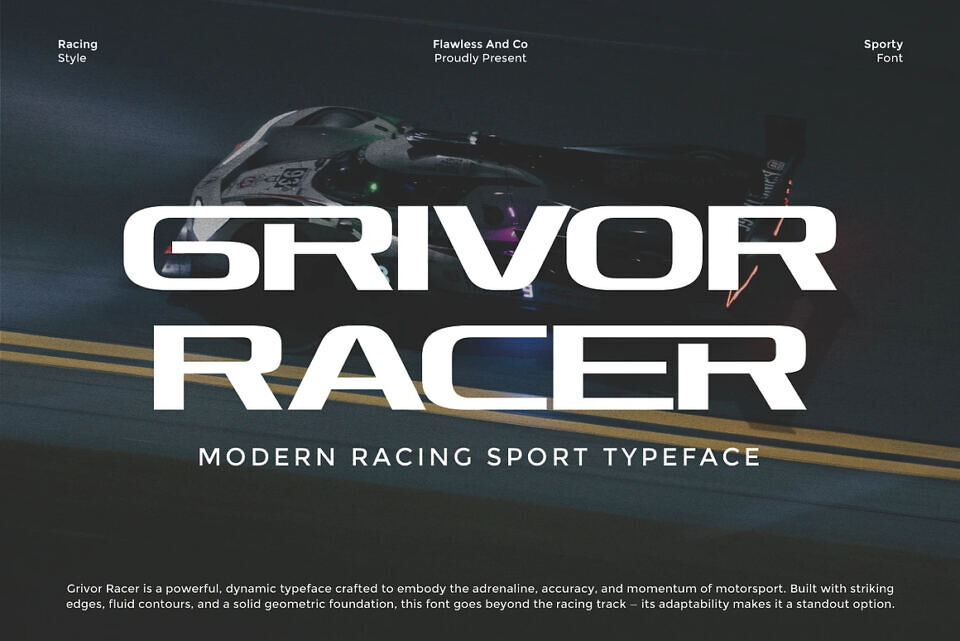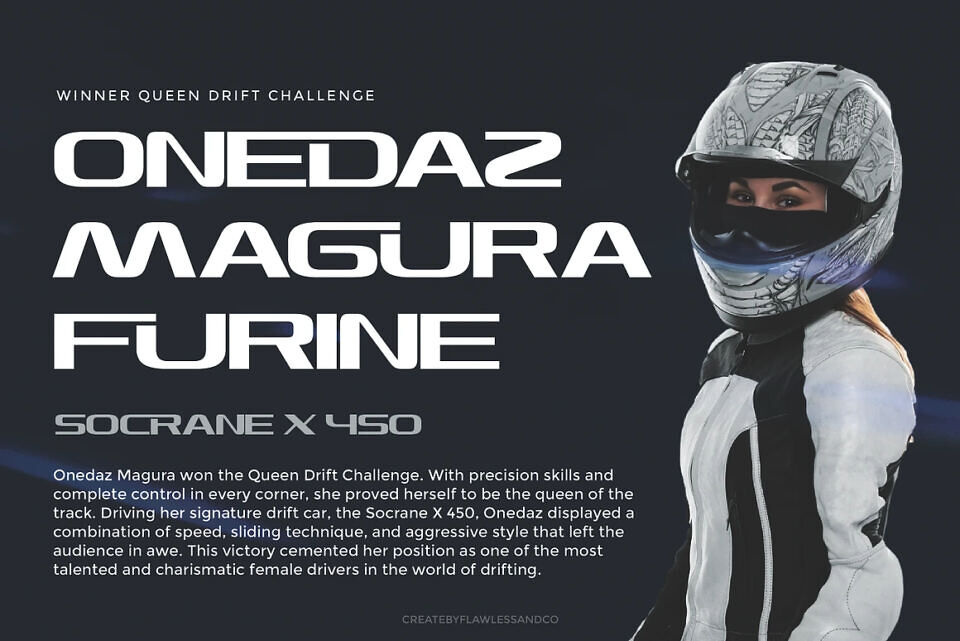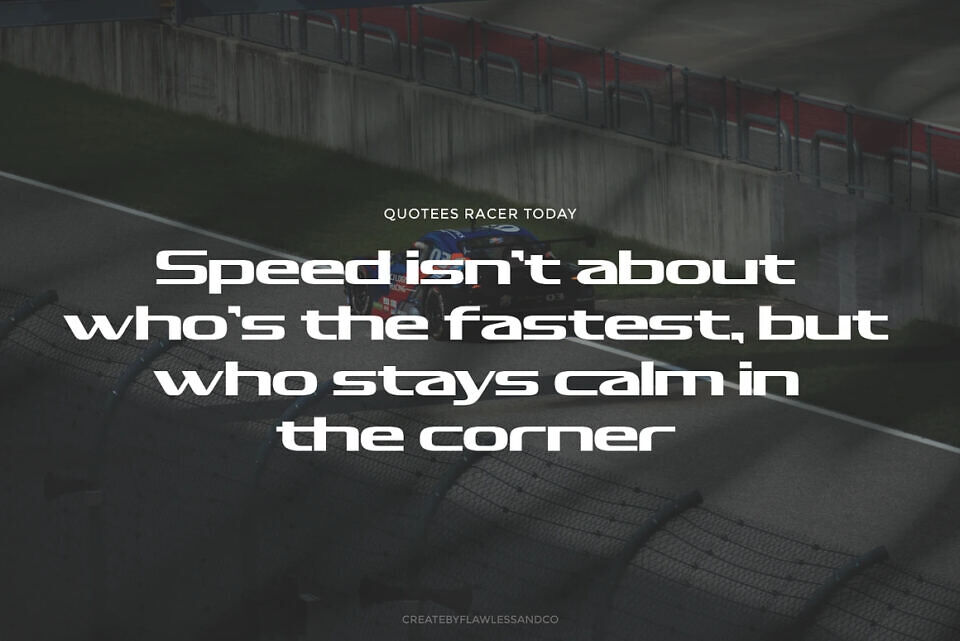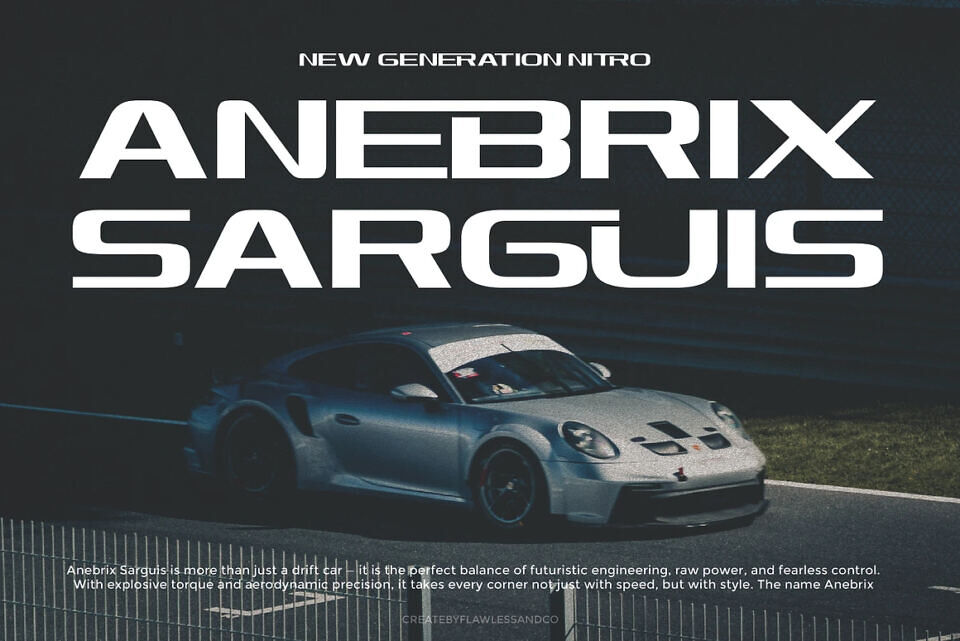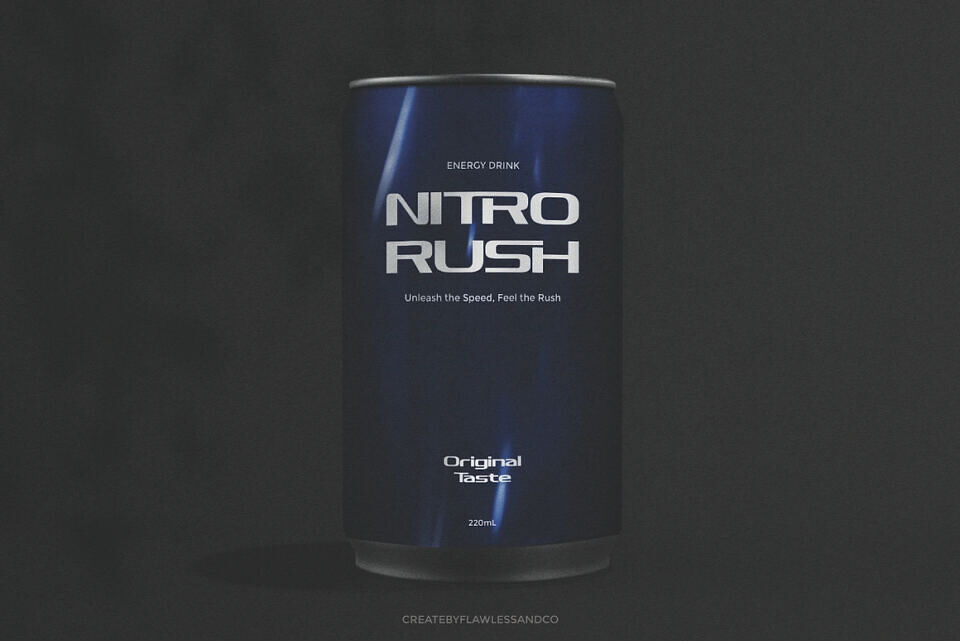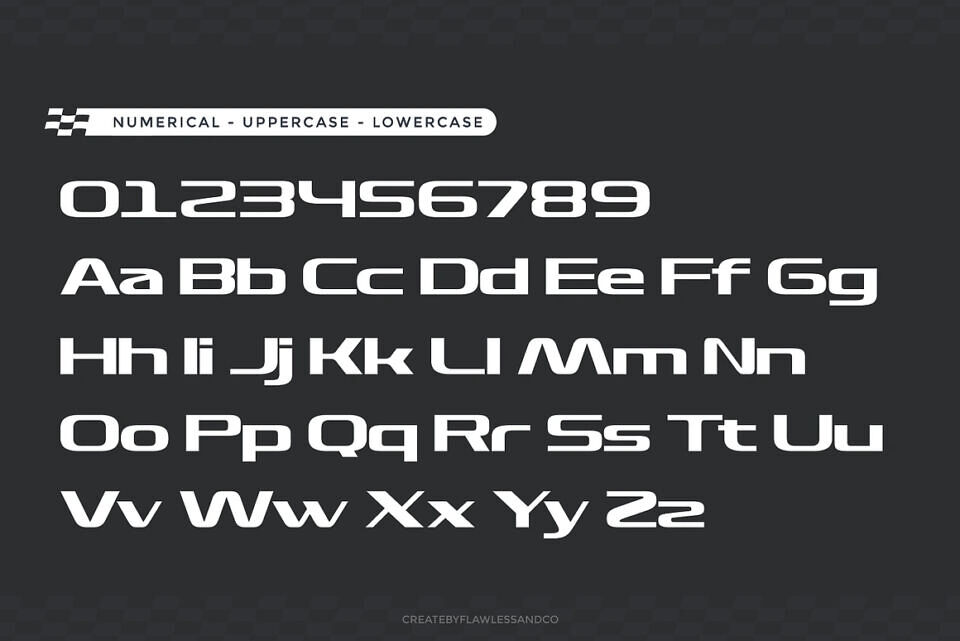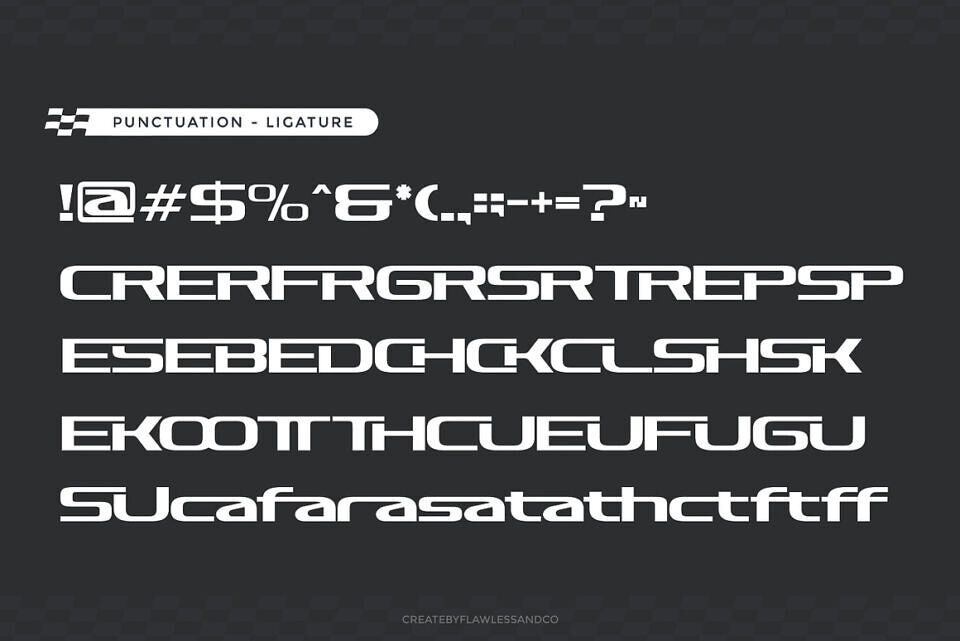
Grivor Racer Font
Grivor Racer is a bold racing sport font built for speed, power, and precision. Featuring sharp cuts, aerodynamic curves, and a geometric structure, it delivers adrenaline-fueled style while keeping readability intact.
Perfect for logos, branding, posters, apparel, and motorsport projects, this high-energy typeface brings a dynamic edge to every design. With uppercase, lowercase, alternates, ligatures, numerals, punctuation, and multilingual support, Grivor Racer is a must-have for designers and brands aiming to capture motion, strength, and impact in their visuals.